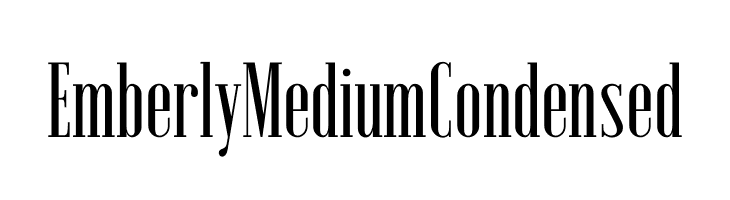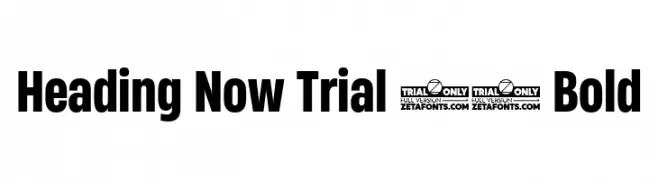
A playful, decorative font with bold, rounded characters and whimsical flair.
A highly condensed sans-serif font with tall, narrow letterforms for a modern look.
A bold, angular font with a vintage, impactful style.
A bold, retro-inspired font with thick, rounded letterforms ideal for nostalgic designs.
A bold blackletter font with sharp, angular lines and a gothic aesthetic.
A modern, geometric, and condensed font with bold, uniform strokes.
A bold, italic, futuristic font with angular, geometric characters.
A bold, geometric font with a gradient effect and modern style.
A modern, clean sans-serif font with excellent readability.
A bold, modern font with geometric and angular characteristics.
A graceful script font with flowing, delicate strokes and elegant flourishes.
A bold, playful script font with a handwritten, flowing style.
A playful, balloon-like font with rounded, glossy characters.
A refined serif font with semi-condensed, light letterforms and moderate contrast.
A bold, geometric font with sharp angles and a modern, edgy style.
A bold, classic serif font with strong lines and elegant curvature.
A bold, modern sans-serif font with geometric letterforms and consistent stroke widths.
A bold, geometric sans-serif font with a modern and clean design.
A bold, italic sans-serif font with a modern and dynamic style.
A playful, handwritten-style font with rounded edges and a casual appearance.
A bold, condensed font with a geometric and powerful style.
A bold, geometric font with a modern, angular design.
A playful, hand-drawn font with bold, rounded strokes.
A modern, light, and condensed sans-serif font with smooth strokes.
A bold, vintage-style font with a three-dimensional effect and strong serifs.
An elegant italic serif font with smooth lines and a classic touch.